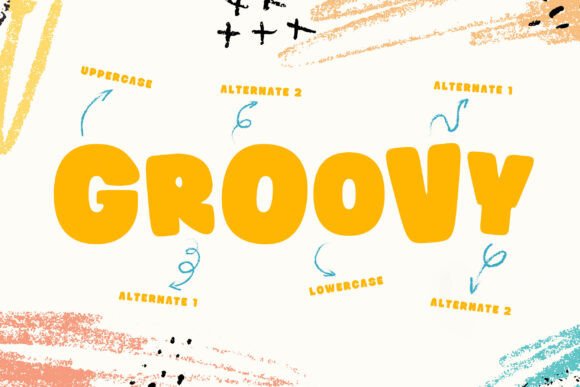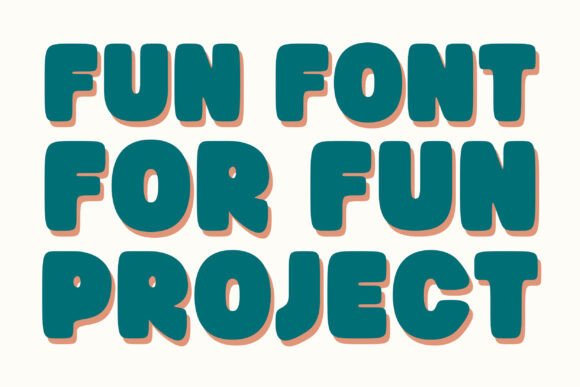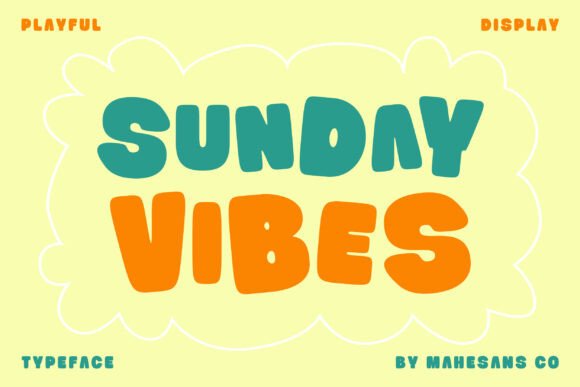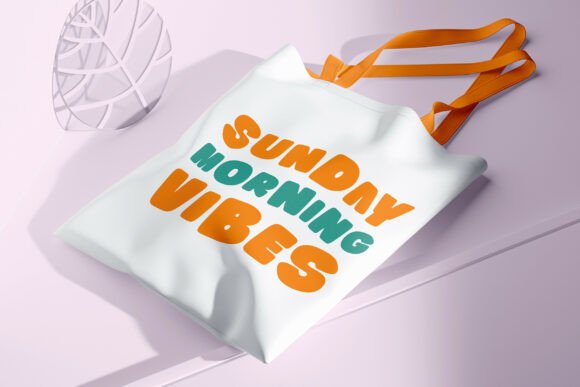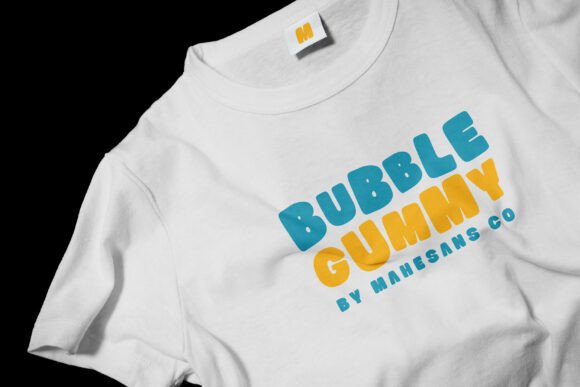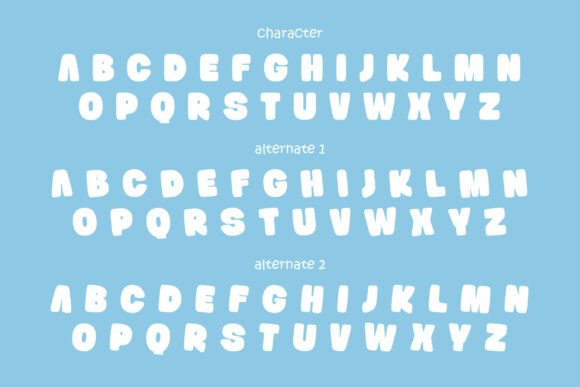
Bubble Gummy Font: The Perfect Choice for Fun and Playful Designs
Are you looking for a font that can add a touch of fun and playfulness to your designs? Look no further than the Bubble Gummy font! This bold and cheerful display font is perfect for kids’ projects, toys, packaging, posters, and playful branding. Its rounded, chunky letters make it a great choice for designers and crafters who want to create eye-catching and friendly designs.
What is Bubble Gummy Font?
Bubble Gummy font is a bold and fun display font that features rounded, chunky letters with a cheerful vibe. The font includes uppercase, lowercase, and alternates, giving designers more creative flexibility when working on projects. Whether you’re creating a logo, book cover, social media post, or any other design that needs a friendly and eye-catching style, Bubble Gummy font is the perfect choice.
Key Features of Bubble Gummy Font
- Bold and Fun Design: The Bubble Gummy font features a bold and fun design that is perfect for creating eye-catching designs.
- Rounded and Chunky Letters: The font’s rounded and chunky letters give it a playful and cheerful vibe.
- Uppercase, Lowercase, and Alternates: The font includes uppercase, lowercase, and alternates, giving designers more creative flexibility.
- Perfect for Kids’ Projects: The font’s playful design makes it perfect for kids’ projects, toys, and packaging.
- Great for Playful Branding: The font’s friendly and eye-catching style makes it great for playful branding.
Uses of Bubble Gummy Font
The Bubble Gummy font is versatile and can be used in a variety of design projects, including:
- Kids’ Projects: The font is perfect for kids’ projects, such as children’s books, educational materials, and kids’ toys.
- Toys and Packaging: The font’s playful design makes it great for toys and packaging, such as candy wrappers, labels, and product packaging.
- Posters and Flyers: The font’s bold and fun design makes it perfect for posters and flyers, such as movie posters, event flyers, and advertisements.
- Playful Branding: The font’s friendly and eye-catching style makes it great for playful branding, such as logos, business cards, and letterheads.
- Social Media: The font’s fun and playful design makes it perfect for social media posts, such as Facebook posts, Twitter headers, and Instagram graphics.
Why Choose Bubble Gummy Font?
There are many reasons why designers and crafters should choose the Bubble Gummy font for their design projects. Here are a few:
- Unique and Eye-Catching Design: The font’s bold and fun design makes it stand out from other fonts.
- Perfect for Kids’ Projects: The font’s playful design makes it perfect for kids’ projects and toys.
- Flexible and Versatile: The font includes uppercase, lowercase, and alternates, giving designers more creative flexibility.
- Easy to Read: The font’s chunky letters make it easy to read, even at small sizes.
Tips for Using Bubble Gummy Font
Here are a few tips for using the Bubble Gummy font in your design projects:
- Use it for Headings: The font’s bold and fun design makes it perfect for headings and titles.
- Pair it with Other Fonts: The font pairs well with other fonts, such as sans-serif fonts and script fonts.
- Use it for Kids’ Projects: The font’s playful design makes it perfect for kids’ projects, such as children’s books and educational materials.
- Experiment with Colors: The font’s fun and playful design makes it perfect for experimenting with different colors and color combinations.
In conclusion, the Bubble Gummy font is a bold and fun display font that is perfect for kids’ projects, toys, packaging, posters, and playful branding. Its rounded, chunky letters make it a great choice for designers and crafters who want to create eye-catching and friendly designs. With its uppercase, lowercase, and alternates, the font offers more creative flexibility, making it a great addition to any design project.